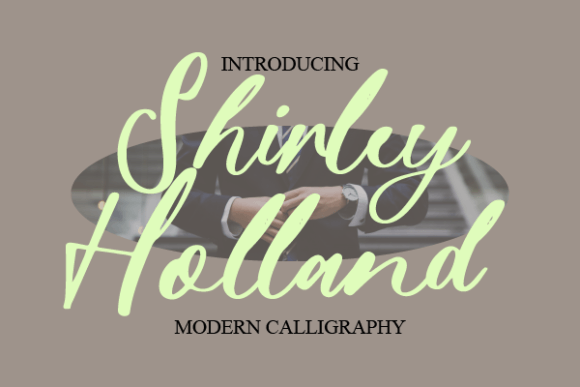
Introducing Shirley Holland Font - A Captivating Script Font for Your Creative Endeavors
Enter the enchanting world of calligraphy with Shirley Holland Font, a masterpiece that combines modern elegance with a touch of vintage charm. This script font is meticulously crafted to bring a unique flow and captivating personality to all your design projects.
Unleash Your Creativity with Endless Possibilities:
With Shirley Holland Font, your design possibilities are limitless. Whether you're creating logos, branding, covers, posters, or any other project that demands a touch of sophistication, this font will elevate your work to new heights. Its graceful curves and elegant strokes add a timeless allure to any design.
Embrace the Beauty of Handcrafted Elegance:
Shirley Holland Font is a labor of love, meticulously crafted by the talented artist fiqiart. Each letter is a testament to the passion and dedication that went into creating this font. The result is a masterpiece that exudes elegance and charm, leaving a lasting impression on your audience.
Make a Statement on Social Media:
In the realm of social media, where visual impact reigns supreme, Shirley Holland Font is your secret weapon. Its captivating design is perfect for Instagram posts, stories, and reels, allowing you to captivate your audience and make a lasting impression. Let your words dance with grace and elegance, leaving your followers spellbound.